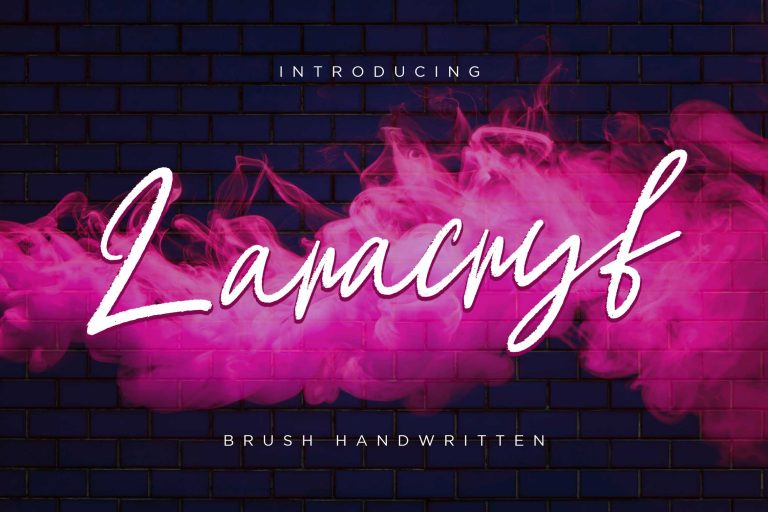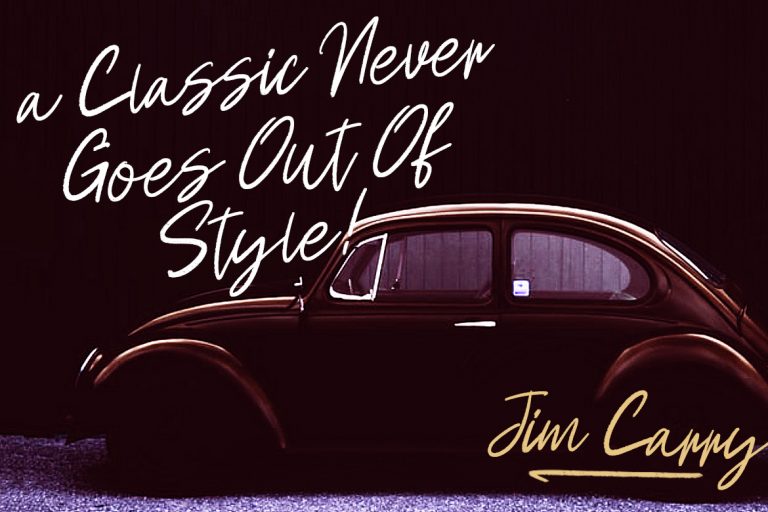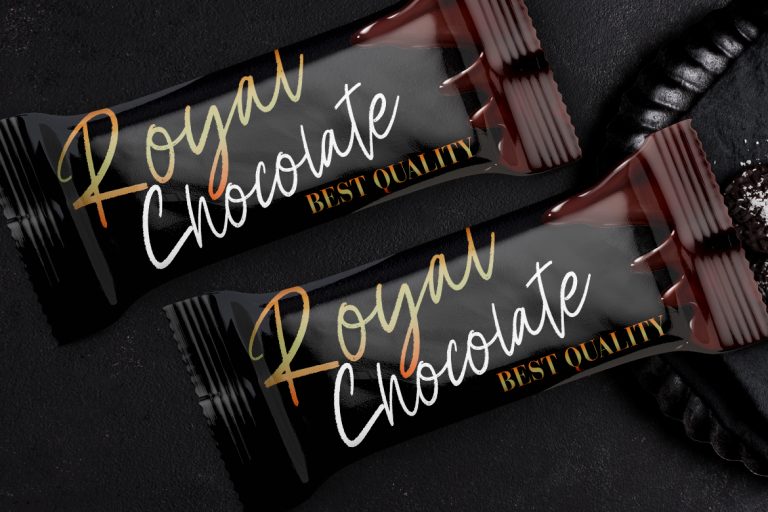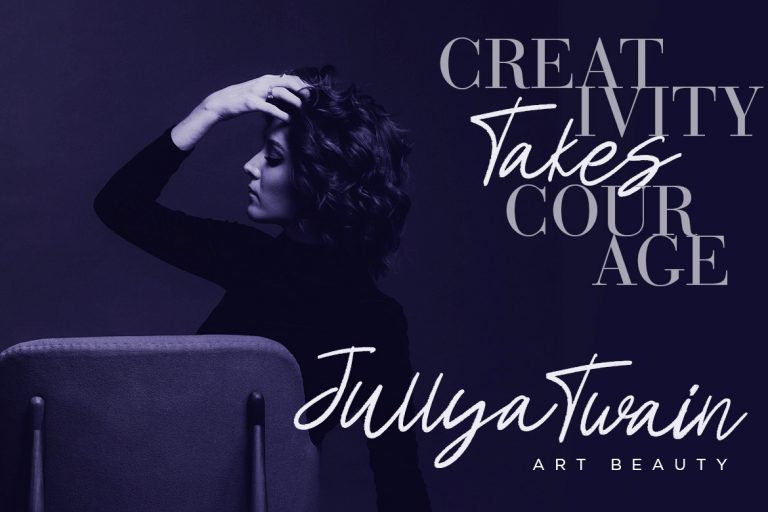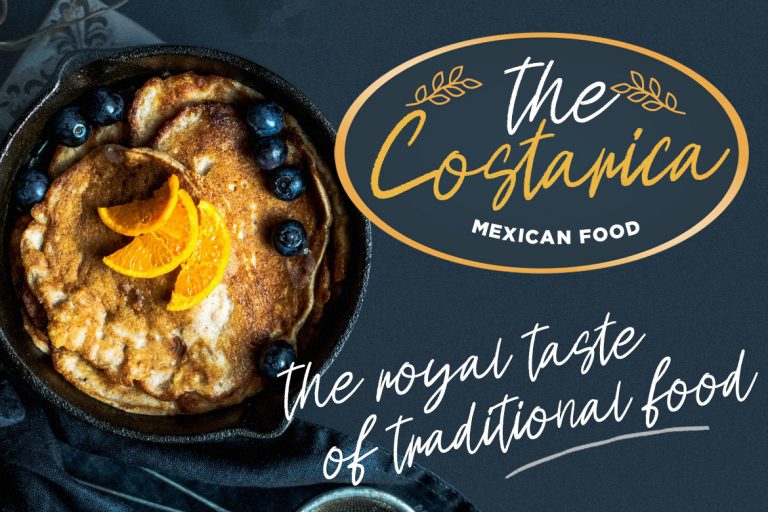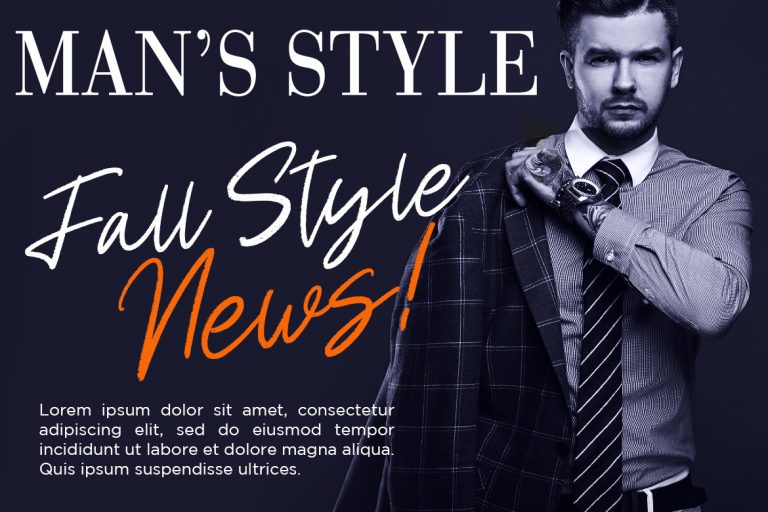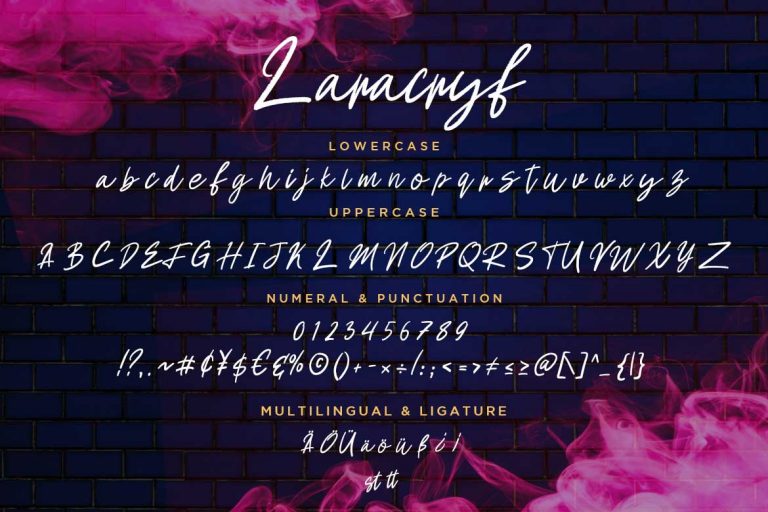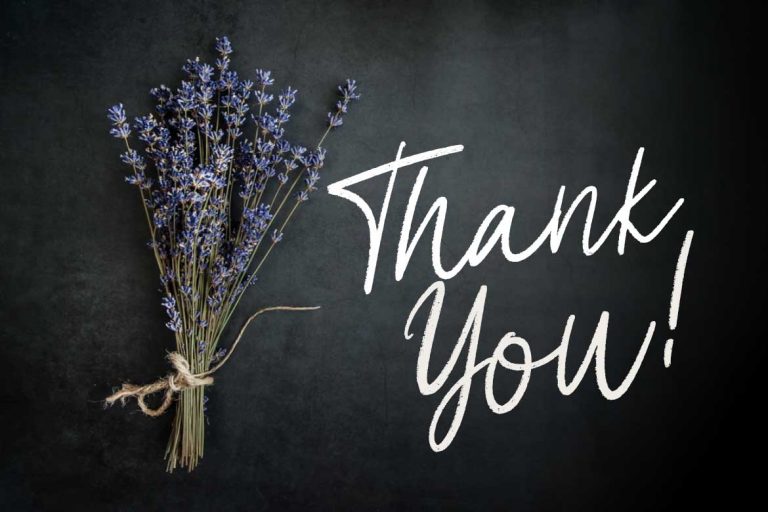
Laracryf Brush Handwritten
Laracryf is brush handwritten font with elegant and natural movement style.
Laracryf is perfect for branding projects, logo, wedding designs, social media posts, advertisements, product packaging, product designs, label, photography, watermark, invitation, stationery and any projects that need handwriting taste.
- Fonts include multilingual support for; ä ö ü Ä Ö Ü ß ¿ ¡